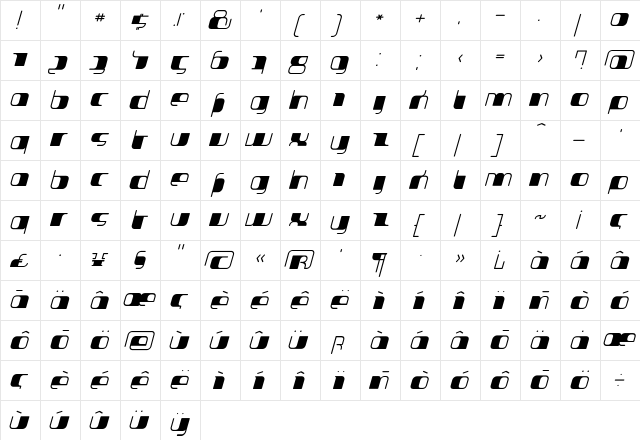
Jakone ExtendedBoldItalic
Design Context for Jakone Typeface
Jakone offers clean, dependable letterforms without strong stylistic allegiance, making it a practical choice for designers who need flexibility. The slanted form adds forward momentum and visual energy. Its bold stroke weight gives it real presence on the page.